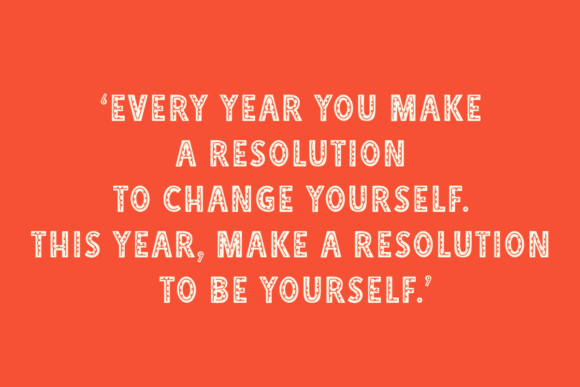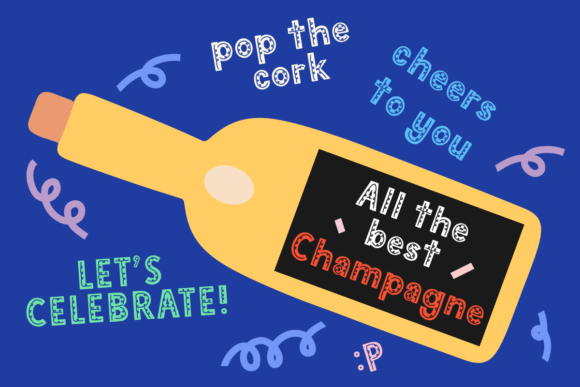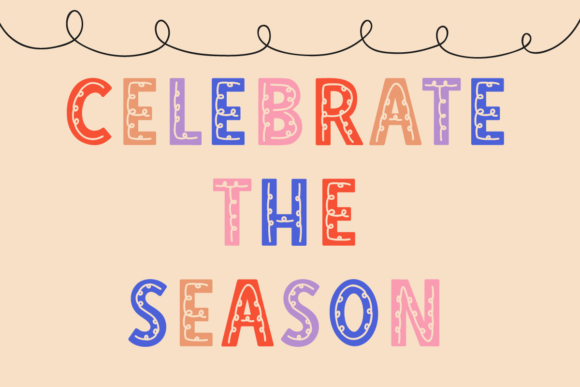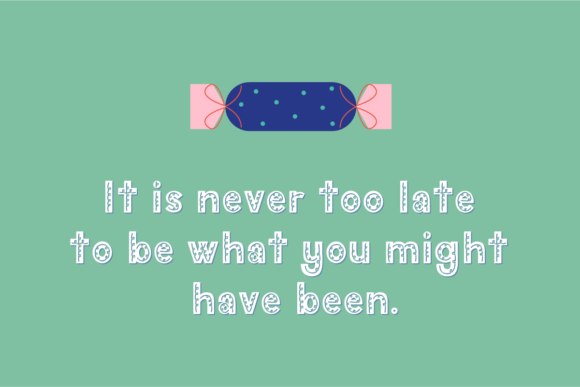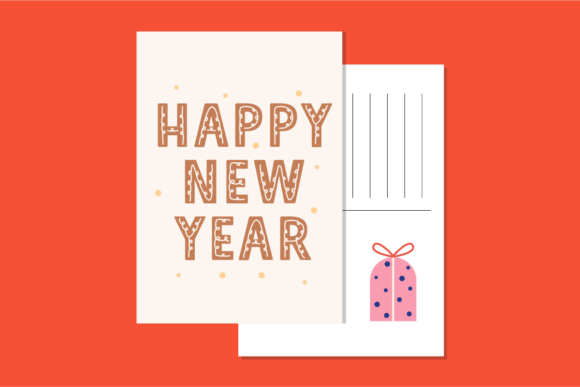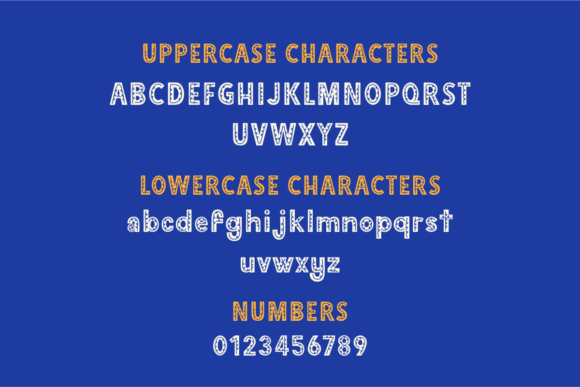
Introduction to New Year Wishes Font
As the clock strikes midnight on December 31st, many of us start brainstorming creative ideas for our New Year’s celebrations. From designing custom party invitations to creating a festive atmosphere at home, the possibilities are endless. One of the most exciting parts of this process is selecting the perfect font to match the mood and theme of our celebrations.
That’s where the New Year Wishes Font comes in – a playful decorative font that’s perfect for adding a touch of whimsy to any creative project. Whether you’re working on a high-quality design for a client or simply want to create a fun and personalized item for yourself, this font is sure to bring a smile to your face. With its full set of alphabet, extended punctuation, and multilingual character support, the New Year Wishes Font is a valuable resource for designers looking to add some extra flair to their designs.
What sets the New Year Wishes Font apart from other design resources is its versatility and ease of use. With a transparent background and a wide range of applications, from greeting cards to packaging and beyond, this font is a free download that’s sure to become a staple in any designer’s toolkit.
Key Features of New Year Wishes Font
- High-quality design suitable for various creative projects, including greeting cards, posters, and digital invitations.
- Unique, festive design elements that evoke the spirit of New Year’s celebrations, perfect for holiday-themed projects.
Honest Review: New Year Wishes Font
I recently came across the New Year Wishes Font, and I was excited to see if it would be a valuable addition to my design resources. As a designer, I’m always on the lookout for high-quality fonts that can elevate my creative projects.
Here are some of the things that work well with the New Year Wishes Font: ✨
- The font is available with a transparent background, allowing for seamless integration with other design elements.
- The design is modern and stylish, making it perfect for New Year’s-themed projects or any other occasion that calls for a touch of elegance.
- The font is quite specific in its design, which may limit its use in more general design projects.
- The character set is not extensive, so it may not be suitable for longer blocks of text.
Overall, I’m impressed with the New Year Wishes Font, and I think it’s a great addition to any designer’s collection. It’s perfect for designers who are working on a specific project that requires a high-quality, modern font with a transparent background.
The New Year Wishes Font is perfect for various use cases, including: New Year’s Eve invitations, party decorations, social media posts, and greeting cards.